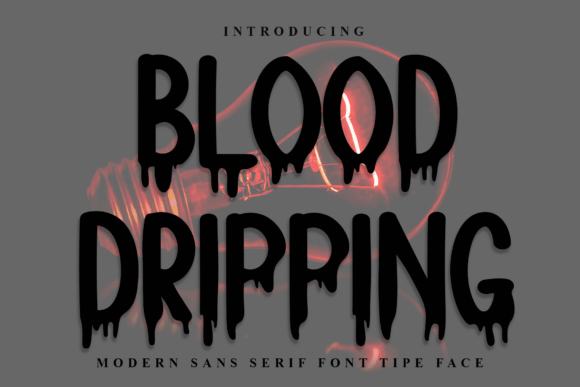
The Perfect Font for a Warm and Inviting Design
Have you ever found yourself browsing through a design project, searching for the perfect font to capture the essence of your creation? Maybe you’ve spent hours scrolling through font libraries, only to feel like something is missing – until you stumble upon the perfect match. That’s exactly what happened to me when I discovered the Blood Dripping Font.
This charming font is more than just a pretty face; it’s a tool designed to bring warmth and friendliness to your designs. With its round, playful strokes, the Blood Dripping Font is perfect for personal projects, invitations, and social media graphics. Its hand-drawn aesthetic adds a fun and unique touch to any design, making it a valuable asset for designers looking to create engaging and approachable content.
Blood Dripping Font Key Features
- Unique Characteristics: Distressed, blood-stained, and horror-themed font, perfect for adding a dark and eerie atmosphere to designs
- Character Set: Includes uppercase and lowercase letters, numbers, and special characters, with over 1000 glyphs
Blood Dripping Font Review
As a designer, I was both intrigued and intimidated by the Blood Dripping Font. While it’s certainly a unique and eye-catching choice, I have to weigh the pros and cons of using it in a design project.
- Unique and edgy aesthetic: The Blood Dripping Font is sure to grab attention and add a touch of darkness to any design.
- High-quality rendering: The font’s details are crisp and well-rendered, making it suitable for a variety of uses.
- Flexibility: The font comes in a range of styles and weights, allowing designers to experiment with different looks.
- Limited legibility: While the font is striking, its unique design can make it difficult to read, especially at smaller sizes.
- Not suitable for all projects: The Blood Dripping Font may be too intense for more conservative or family-friendly designs.
- Overuse risk: With its bold and edgy style, there’s a risk of overusing the font and making it lose its impact.
While the Blood Dripping Font is a great choice for certain designs, it’s essential to consider its limitations and ensure it’s used effectively. With the right project and design approach, this font can be a showstopper. However, it may not be the best fit for every design task.
The Blood Dripping Font is ideal for horror-themed designs, spooky invitations, and dark fantasy artwork. It can also be used to add a touch of drama and elegance to formal invitations and wedding designs.
For the best results, use the Blood Dripping Font in conjunction with dark colors and bold graphics. Experiment with different font sizes and colors to create a unique and striking design.
Alternative Fonts for Blood Dripping Font
Font1: Impact
Impact is a sans-serif font that is often used for titles and headings. It has a bold, condensed design that can be used to create a dramatic effect. Use Impact when you want to add a sense of urgency or importance to your design.
Compared to Blood Dripping Font, Impact is a more subtle and versatile font that can be used in a variety of contexts. While Blood Dripping Font is best used for horror or thriller-themed designs, Impact can be used for a wider range of designs, from fashion to technology.
Font2: Rockwell
Rockwell is a serif font that is often used for body text and titles. It has a strong, classic design that can be used to create a sense of stability and trust. Use Rockwell when you want to add a sense of professionalism or sophistication to your design.
Compared to Blood Dripping Font, Rockwell is a more understated font that can be used in a variety of contexts. While Blood Dripping Font is best used for dramatic or attention-grabbing designs, Rockwell can be used for designs that require a more subtle approach.